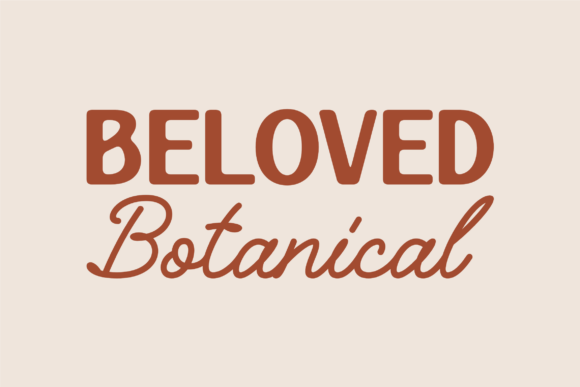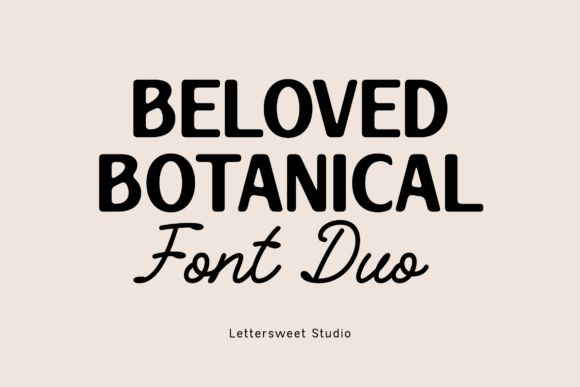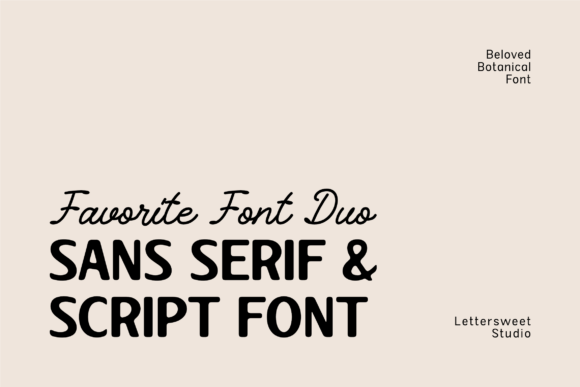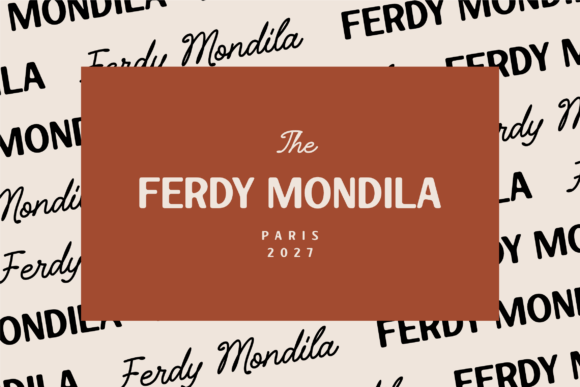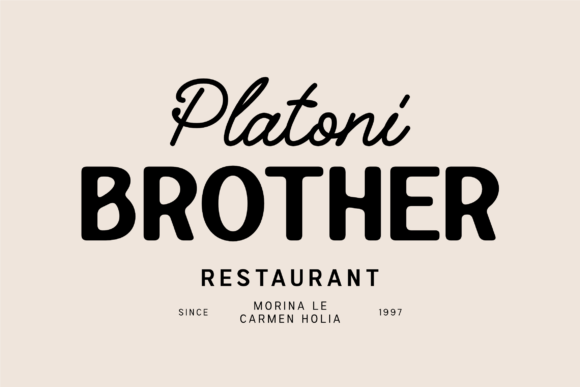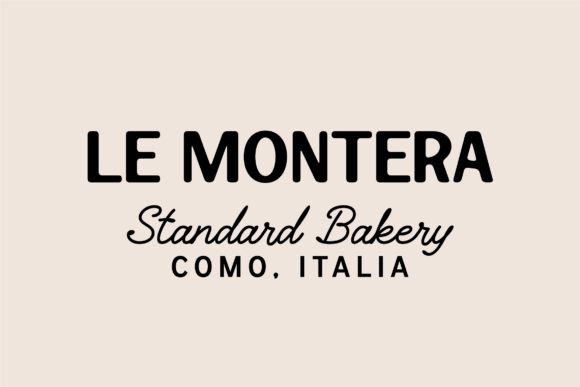
Introducing Beloved Botanical Font: Elevate Your Design with Effortless Elegance
In the world of design, fonts play a crucial role in conveying the tone and aesthetic of a brand or project. For designers and crafters seeking to add a touch of sophistication and elegance to their work, the Beloved Botanical font duo is an exceptional choice. This versatile and refined font combination is specifically crafted to bring a sense of luxury and refinement to various design applications, from wedding invitations and beauty brands to boutique packaging and social media content.
A Harmonious Union of Modern Sans Serif and Natural Script
The Beloved Botanical font duo consists of two complementary fonts: a bold, modern sans serif and a flowing, natural script. This striking contrast creates a visually appealing combination that feels both refined and organic. The clean sans serif font provides structure and readability, making it ideal for headlines, titles, and body text. Meanwhile, the script font adds a personal, emotional touch, perfect for adding a sense of warmth and humanity to your designs.
Effortless Elegance at Your Fingertips
What sets Beloved Botanical apart from other fonts is its ability to effortlessly elevate your design without requiring overthinking or complicated composition. This font duo is built to help your design look premium, making it an excellent choice for designers who want to create stunning visuals without spending hours agonizing over font pairing and layout.
One of the standout features of Beloved Botanical is its incredible versatility. This font duo adapts beautifully across various styles, from minimal and modern to romantic and luxurious. Whether you’re designing:
- Beauty brand logos and marketing materials
- Boutique packaging and labels
- Café logos and menus
- Social media content and graphics
Beloved Botanical is the perfect choice to add a touch of sophistication and elegance to your work.
Why Choose Beloved Botanical Font?
Here are just a few reasons why Beloved Botanical font duo stands out from the rest:
- Sophisticated and refined: Perfect for designs that require a touch of luxury and elegance
- Effortlessly elegant: Easy to use and pair, with a natural flow that elevates your design
- Versatile: Adapts beautifully across various styles and design applications
- Premium look: Helps your design look high-end without requiring extensive design experience
Tips for Getting the Most Out of Beloved Botanical
To maximize the potential of Beloved Botanical font duo, consider the following tips:
- Mix and match: Combine the sans serif and script fonts to create visual interest and contrast
- Experiment with colors: Pair the font with a range of colors to find the perfect match for your brand or design
- Play with texture: Add texture and depth to your design by incorporating subtle patterns or backgrounds
In conclusion, Beloved Botanical font duo is an exceptional choice for designers and crafters seeking to add a touch of sophistication and elegance to their work. With its harmonious union of modern sans serif and natural script, effortless elegance, and versatility, this font duo is sure to elevate your design and help you create stunning visuals with ease.